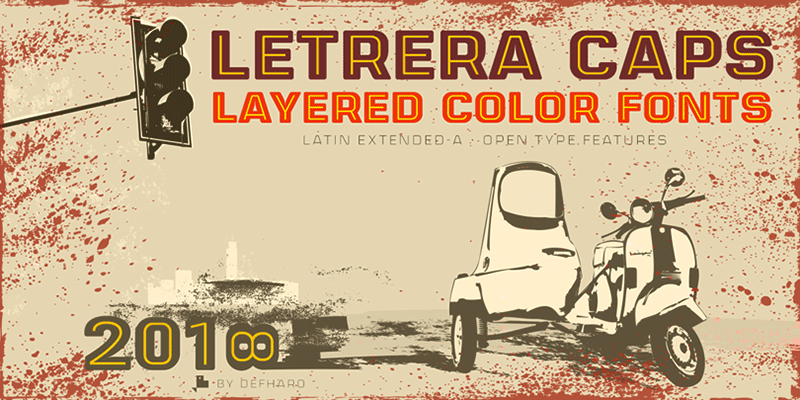
Letrera Caps Layered & Color Fonts is a rounded square-typed display type with three styles that pays homage to the Sans Serif Inline letters, which are very popular in the design of colorful signs and signs from the mid-20th century. Letrera Caps Inline: I have drawn a closed inner line (Inline) in each uppercase letter and sign, the width of this line is 1/6 of the original width of the antlers, the "lowercase" have the same Inline but with leakage, try them! ===================== Full Versions & Commercial Licenses: https://defharo.com/fonts/letrera-caps-color/ |